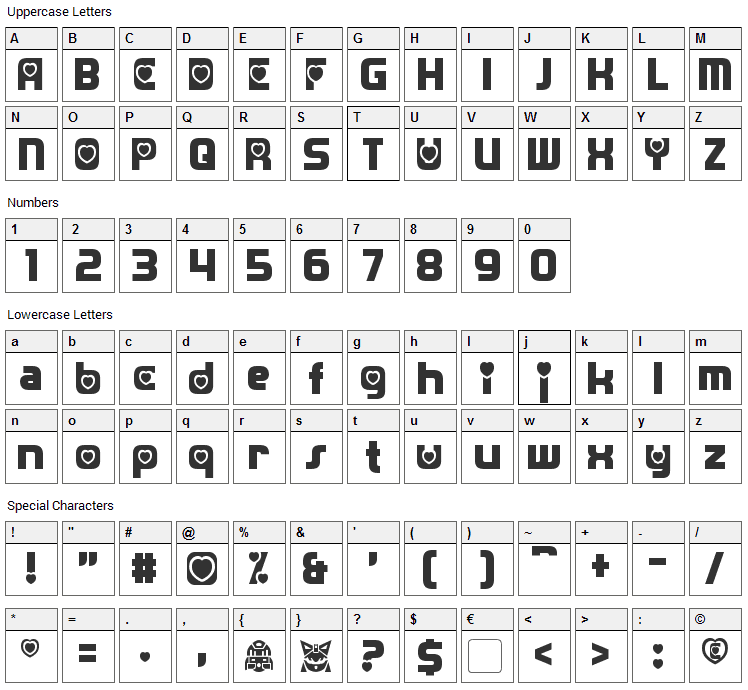
Transmaidens Font
This 'cute' version of the famous Transformers typeface was made for a no defunct fan-fiction series. Many of the letters have been adorned with 'hearts'. Includes full alphabet, extended punctuation, Euro. Includes italic version.